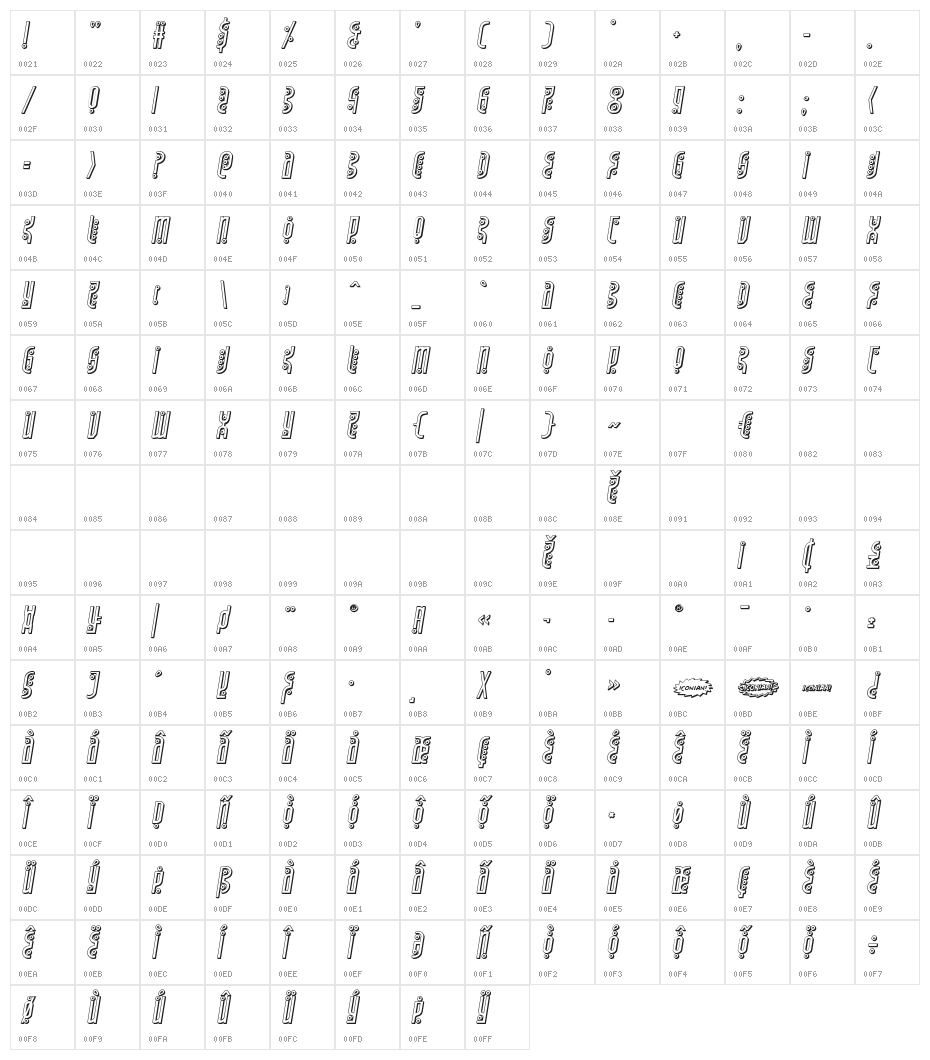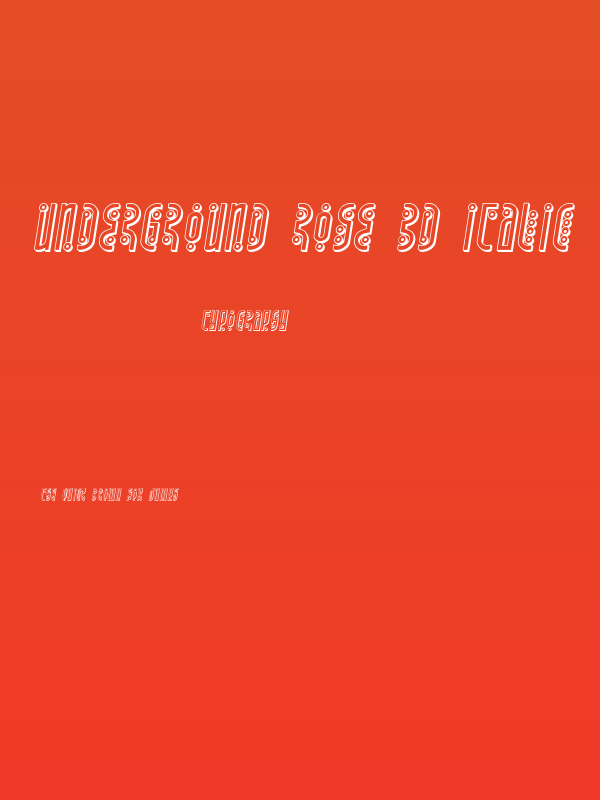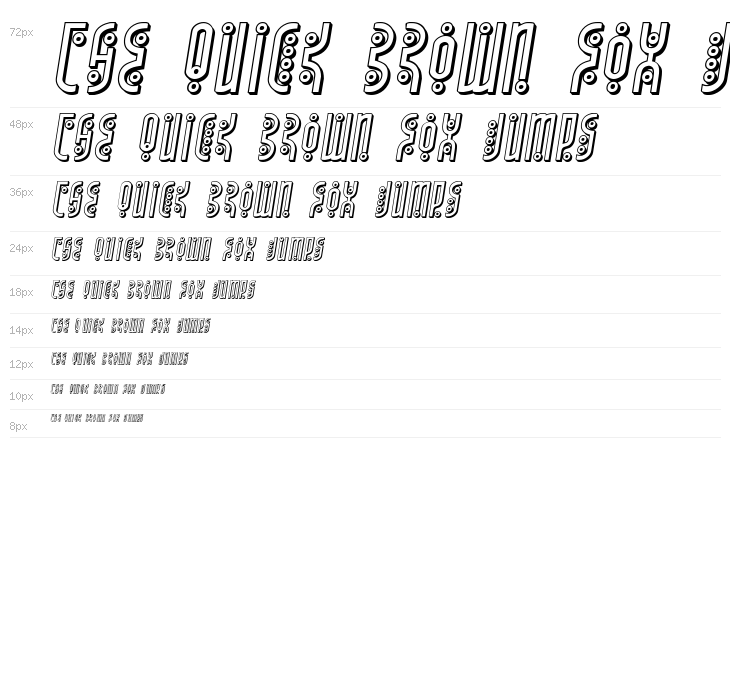
Underground Rose 3D Italic Font
Underground Rose 3D Italic Description
This font features a bold, 3D italic style with a unique decorative flair. Each character is outlined with a shadow effect, creating a sense of depth and dimension. The letters are adorned with circular embellishments, adding a playful and futuristic touch. The overall design is eye-catching and dynamic, making it suitable for projects that require a strong visual impact. The font maintains a consistent width and spacing, ensuring readability despite its intricate design. Its modern and artistic style makes it ideal for creative and unconventional applications.